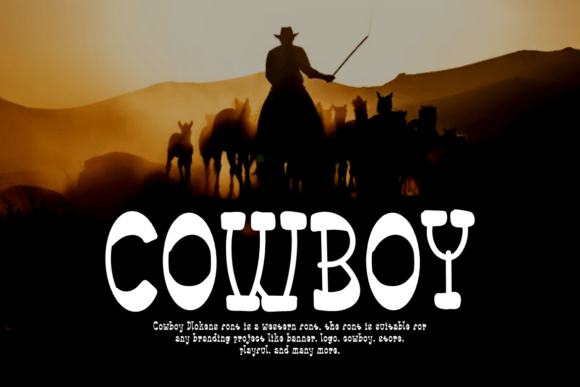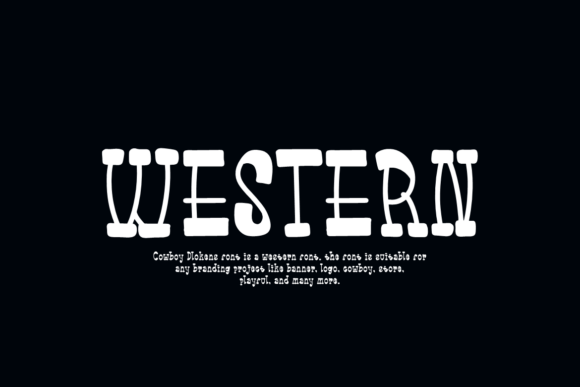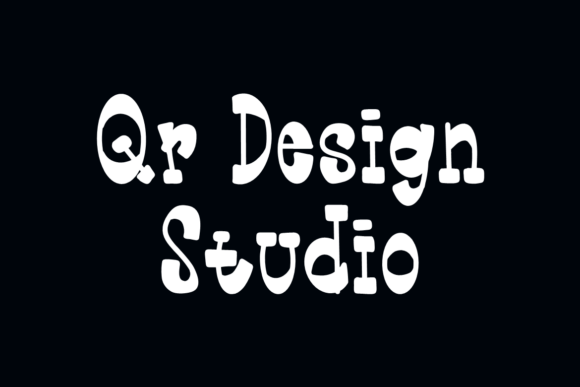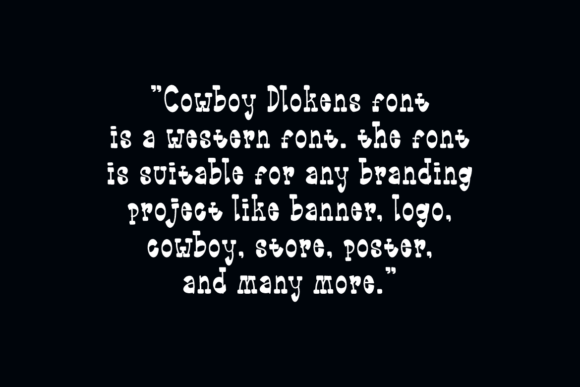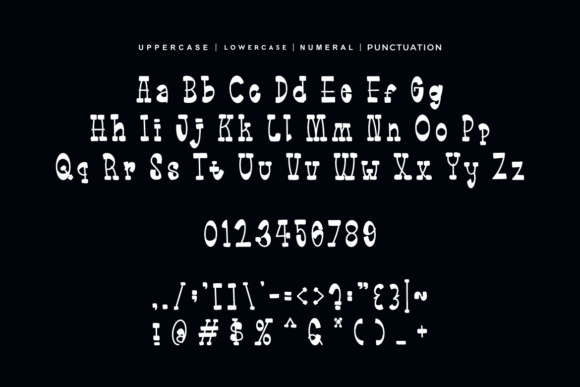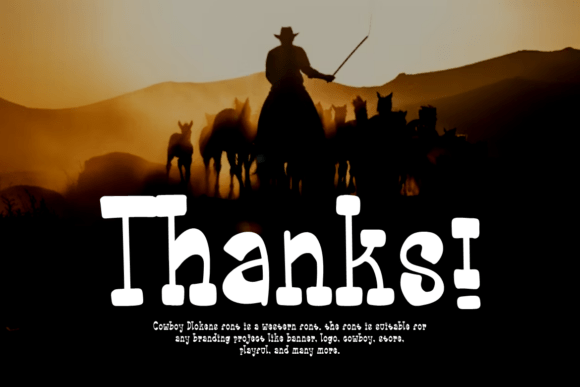
Cowboy Dlokens Font: Saddle Up for a Wild West Typography Adventure
Are you ready to add a touch of Wild West whimsy to your design projects? Look no further than the Cowboy Dlokens font, a rugged Western slab serif font that’s perfect for creating bold and eye-catching typography. Inspired by old rodeo posters and desert landscapes, this font is ideal for designers and crafters who want to bring a taste of the American frontier to their work.
The Inspiration Behind Cowboy Dlokens
Cowboy Dlokens is more than just a font – it’s an experience. Imagine the sun-kissed desert landscapes, the rough-riding cowboys, and the rustic charm of the Wild West. This font captures the essence of that era, with its bold and bouncy structure that’s reminiscent of old rodeo posters and wanted signs. Whether you’re designing for a saloon-themed event, a western-style café, or a country-inspired craft project, Cowboy Dlokens is the perfect choice.
What Makes Cowboy Dlokens So Special?
So, what sets Cowboy Dlokens apart from other fonts? Here are just a few features that make it a standout:
- Rounded slab serifs: The rounded slab serifs add a touch of personality to the font, making it approachable and friendly. This feature also helps to soften the overall look of the font, making it suitable for a wide range of design applications.
- Bold and bouncy structure: The bold and bouncy structure of Cowboy Dlokens makes it perfect for creating eye-catching typography that’s sure to grab attention. Whether you’re designing a logo, signage, or t-shirt prints, this font is sure to make a statement.
- Wild West attitude: Cowboy Dlokens has a certain swagger to it, a Wild West attitude that’s perfect for designers and crafters who want to add a touch of rebellion to their work.
Uses for Cowboy Dlokens
Cowboy Dlokens is a versatile font that can be used for a wide range of design applications, including:
- Logos: Create a bold and eye-catching logo for your business or brand with Cowboy Dlokens.
- Signage: Use Cowboy Dlokens to create attention-grabbing signage for your business or event.
- T-shirt prints: Add a touch of Wild West whimsy to your t-shirt prints with Cowboy Dlokens.
- Western-themed events: Use Cowboy Dlokens to create invitations, posters, and other promotional materials for your western-themed event.
- Craft projects: Add a touch of rustic charm to your craft projects, such as scrapbooking, card making, and DIY home decor, with Cowboy Dlokens.
Tips for Using Cowboy Dlokens
Here are a few tips for getting the most out of Cowboy Dlokens:
- Use it boldly: Cowboy Dlokens is a bold font, so don’t be afraid to use it boldly. Experiment with different font sizes and colors to create eye-catching typography.
- Pair it with contrasting fonts: Pair Cowboy Dlokens with contrasting fonts, such as a clean sans serif or a elegant script font, to create visual interest.
- Experiment with colors: Cowboy Dlokens looks great in a range of colors, from bold and bright to muted and earthy. Experiment with different colors to find the perfect look for your design.
Cowboy Dlokens is a rugged Western slab serif font with a touch of whimsy that’s perfect for designers and crafters who want to add a taste of the Wild West to their work. With its bold and bouncy structure, rounded slab serifs, and Wild West attitude, this font is sure to make a statement. Whether you’re designing for a saloon-themed event, a western-style café, or a country-inspired craft project, Cowboy Dlokens is the perfect choice. So why wait? Saddle up and get ready to ride off into the sunset with Cowboy Dlokens!